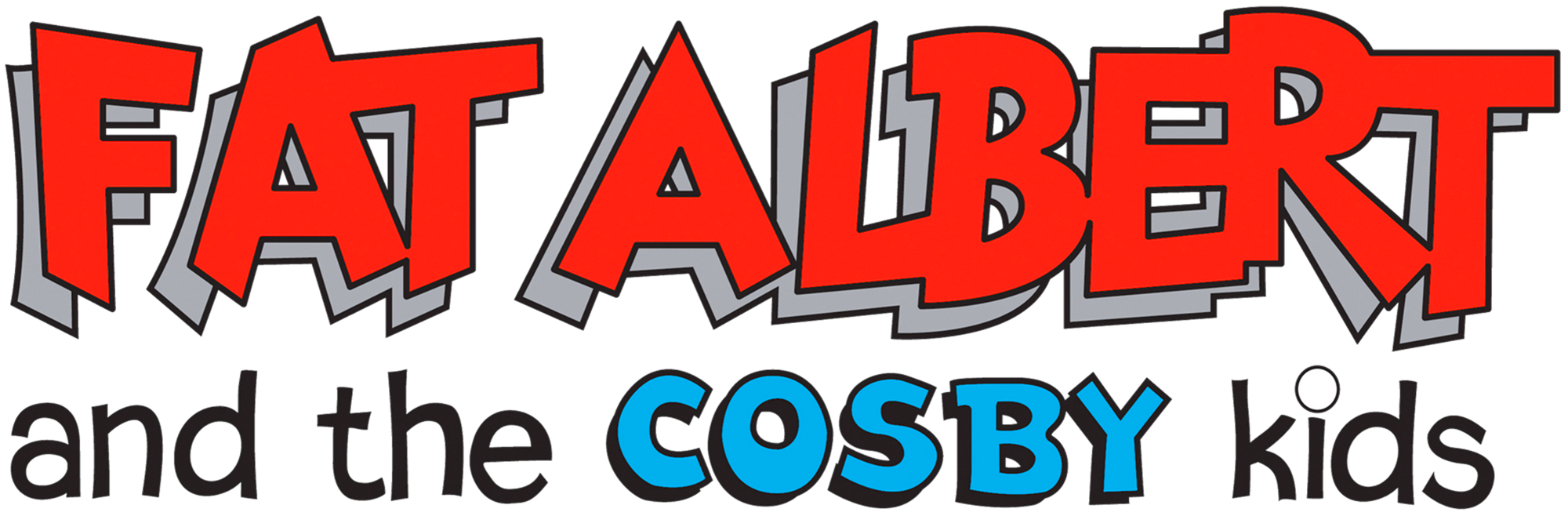
Fat Albert Font - Supports at least 21 languages. Shown in an undated schaedler catalog in regular, outline and shadow styles and credited to ray cruz. Web fat albert bt w01 regular fonts free downloads. Web fat albert bt std regular. Web fat albert bt complete family pack | fonts.com. Buy fat albert bt font from bitstream on fonts.com. Ttf web svg eot woff woff2 otf pfa bin pt3 ps cff. Web fat albert in use. Up to 3 typefaces / 1 value packs. Web fat albert bt font family.
Supports at least 21 languages. Shown in an undated schaedler catalog in regular, outline and shadow styles and credited to ray cruz. Web fat albert bt complete family pack | fonts.com. Ttf web svg eot woff woff2 otf pfa bin pt3 ps cff. Web fat albert bt w01 regular fonts free downloads. Designed by ray cruz in 2004. Up to 3 typefaces / 1 value packs. Web fat albert bt font family. ← back to family page. Web fat albert in use.
Web fat albert bt complete family pack | fonts.com. Supports at least 21 languages. Buy fat albert bt font from bitstream on fonts.com. Up to 3 typefaces / 1 value packs. Shown in an undated schaedler catalog in regular, outline and shadow styles and credited to ray cruz. ← back to family page. Web fat albert bt w01 regular fonts free downloads. Web fat albert bt font family. Web fat albert in use. Web fat albert bt shadow.
Shown In An Undated Schaedler Catalog In Regular, Outline And Shadow Styles And Credited To Ray Cruz.
Designed By Ray Cruz In 2004.